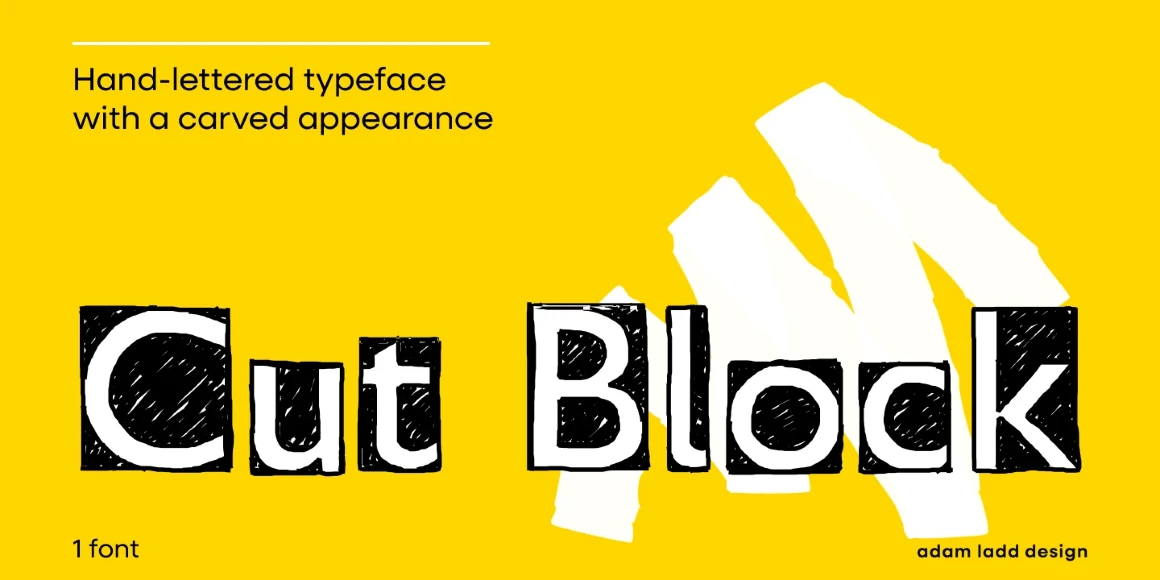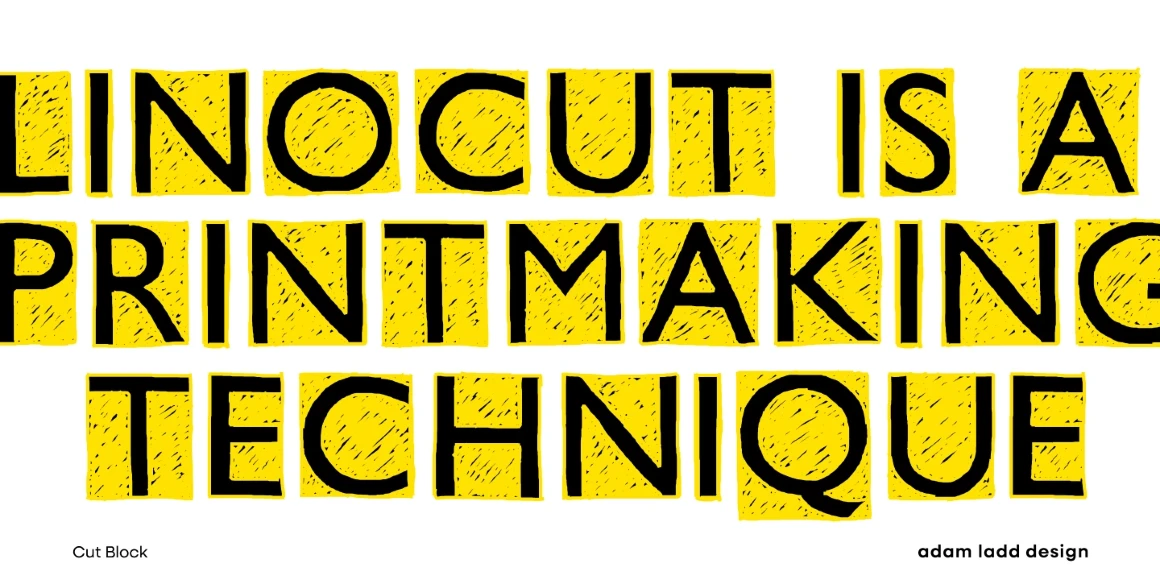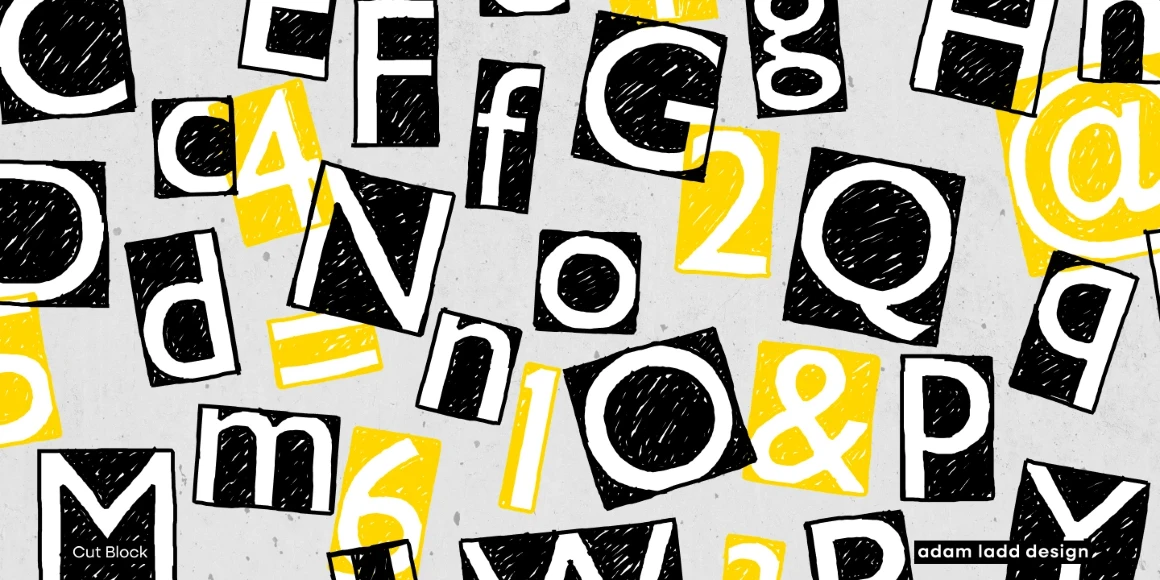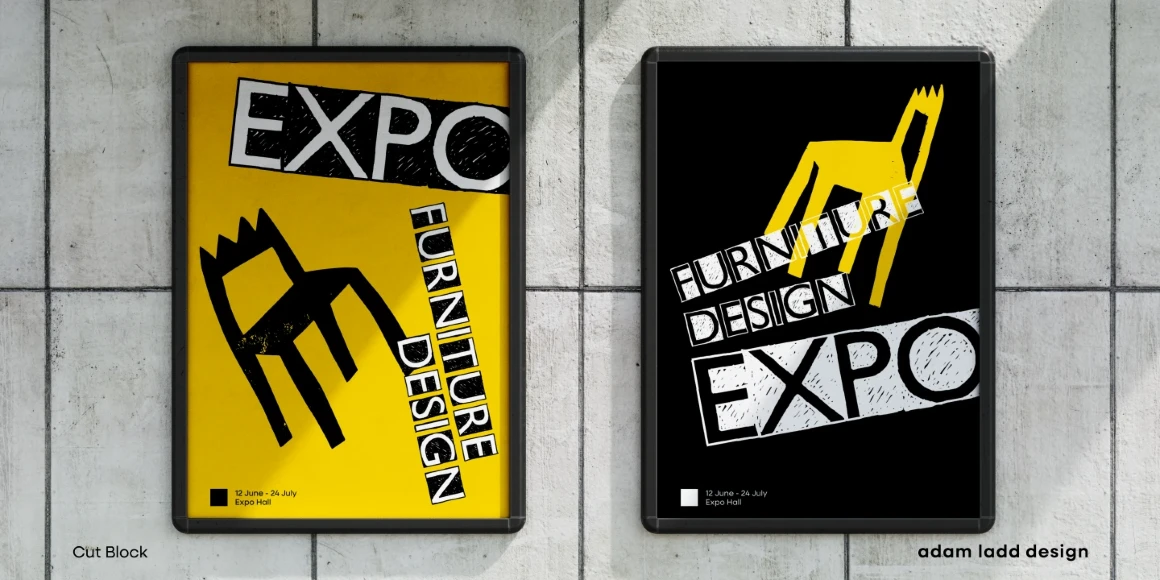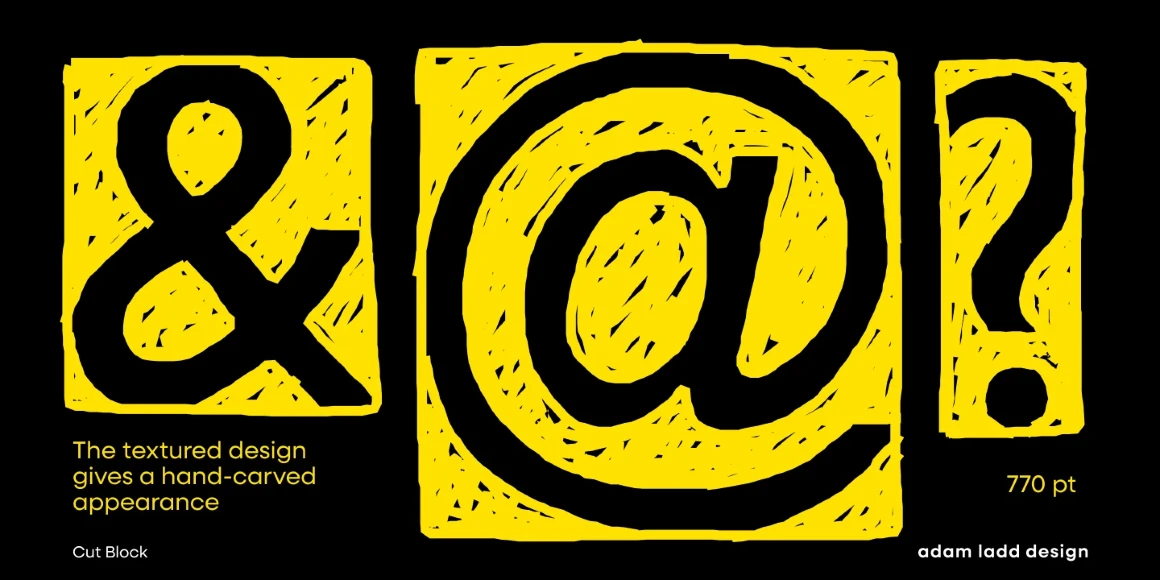
Cut Block
From Adam Ladd Design
Cut Block vividly brings to life the concept of slicing through wood, evoking a tactile sense of craftsmanship. Its design carries a rugged aesthetic that draws inspiration from other iconic 20th-century geometric typefaces — albeit with a creative twist. Cut Block’s potential to evoke emotion, convey messages, and capture attention makes it a valuable choice for designers seeking to create memorable and impactful visuals for packaging, editorial and print design, branding, and event promotions.
Designed by Adam Ladd